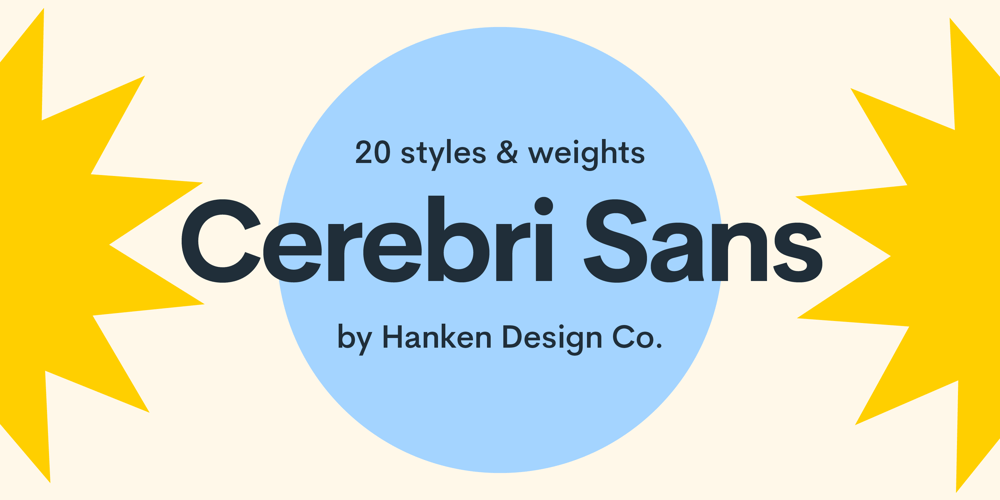
Cerebri Sans
Cerebri Sans font
Cerebri Sans Font Family was designed by Alfredo Marco Pradil and published by Hanken Design Co.. Cerebri Sans contains 16 styles and family package options. Cerebri Sans is a design inspired by early geometric and grotesque typefaces. Subtle humanist details provide an undercurrent of warmth that simmers just beneath the bones of its contemporary simplicity.Cerebri Sans’ concept involved the development of a hybrid appearance. Its soft elegance and finely-tuned legibility make it appropriate for a vast range of applications including headlines, editorials, publishing, advertising, corporate communications, white papers, educational texts, web content, and mobile applications.Cerebri Sans’ multilingual support is extensive, covering Basic Latin, Western European, Euro, Baltic, Turkish, Central European, Romanian, Vietnamese, Pan African Latin, Pinyin and Igbo Onwu for global accessibility.